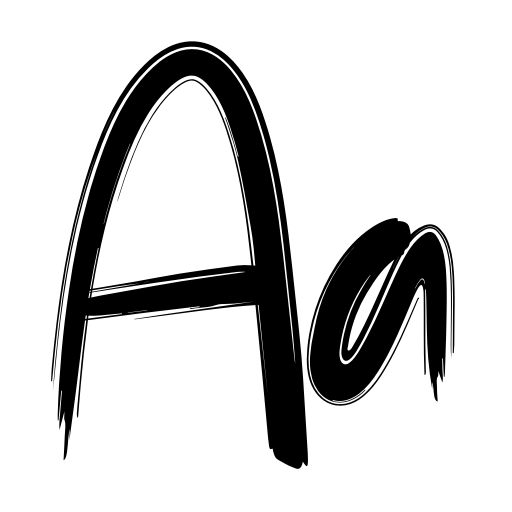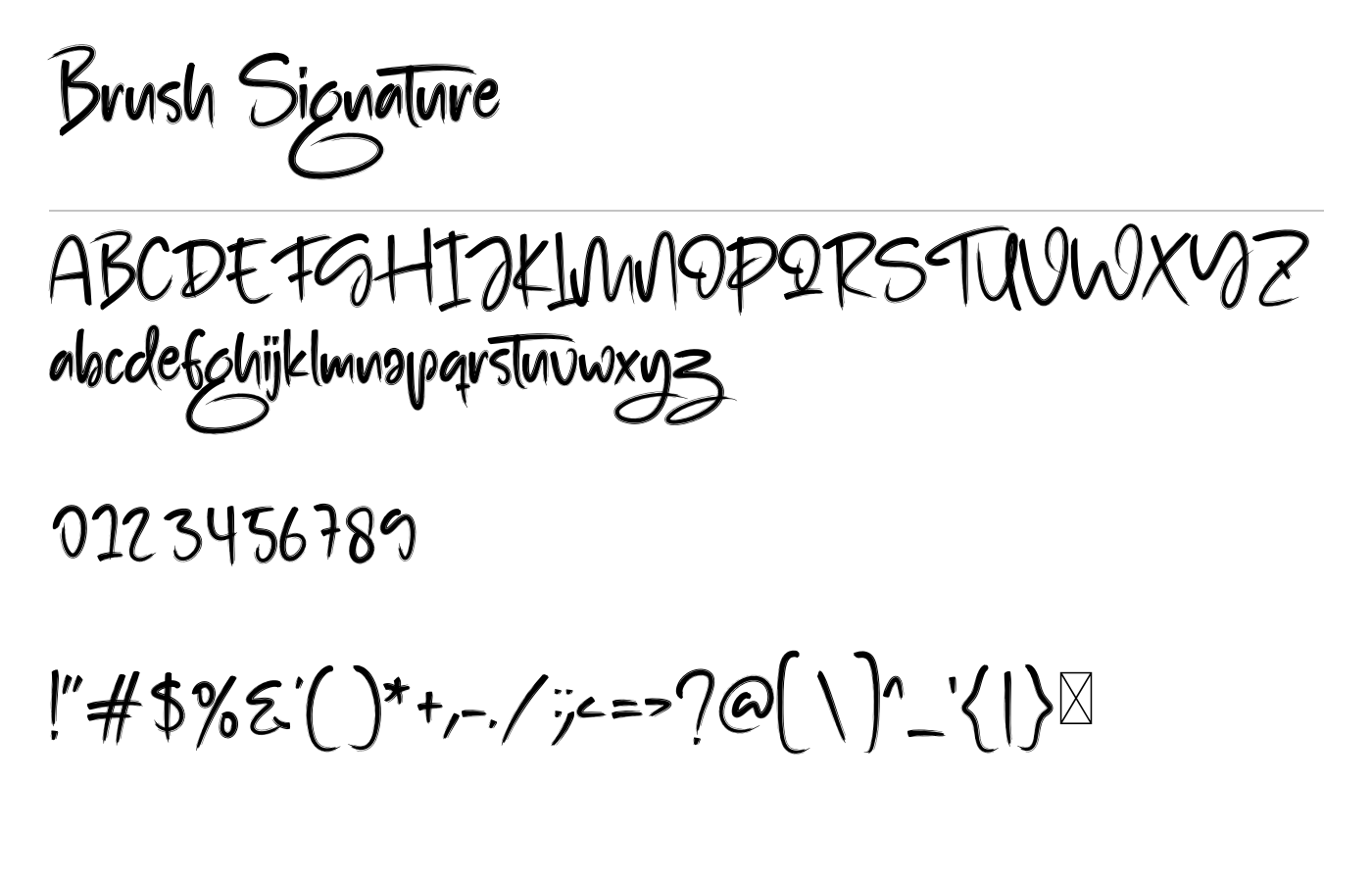
Brush Signature is a lively, handwritten script font that mimics authentic brush strokes with its fluid, casual letterforms. Its tall x-height and varying stroke widths give it an energetic yet personal feel, making it perfect for branding, logos, and creative projects that want to convey a friendly and artistic vibe. This font works well in headlines or display text where a natural, expressive touch is desired.
Brush Signature Font
About Brush Signature Font